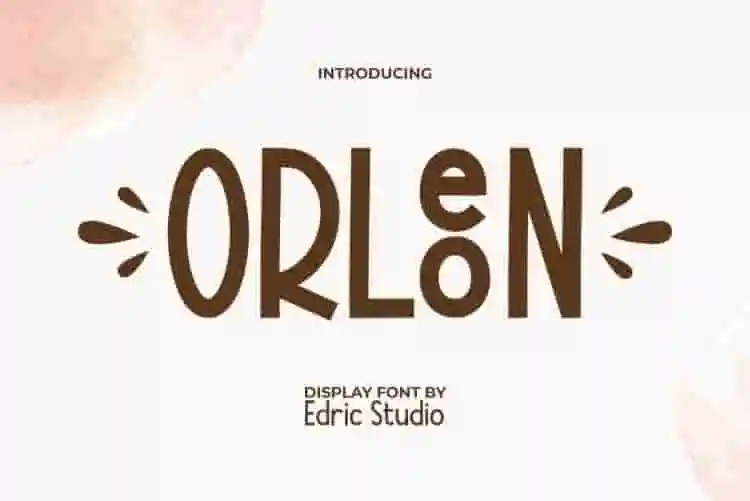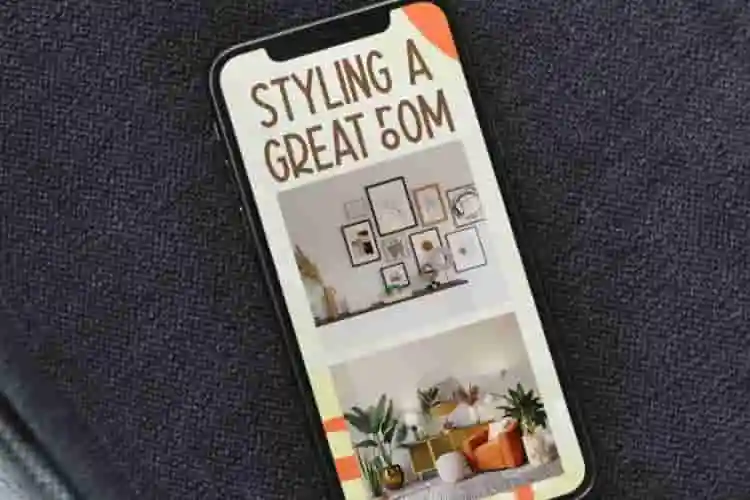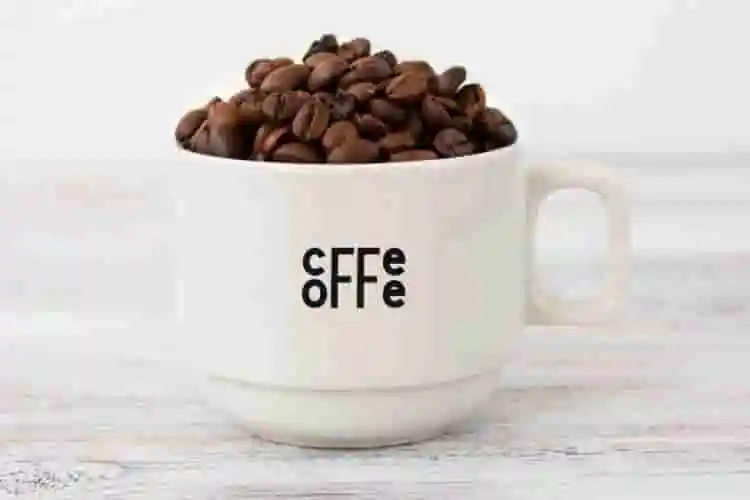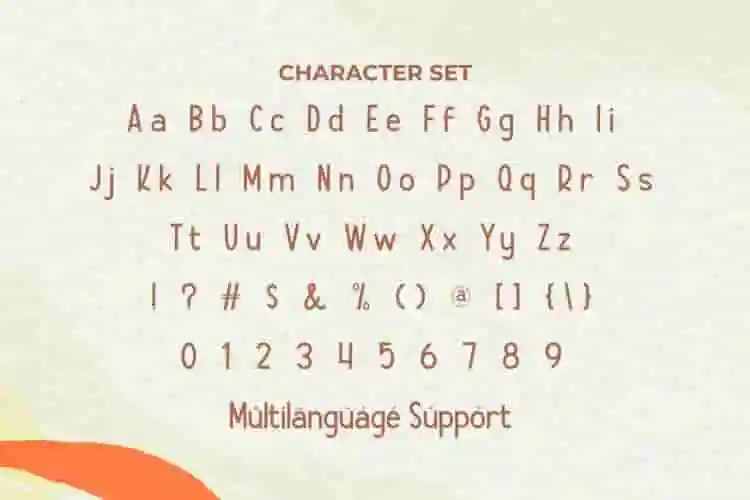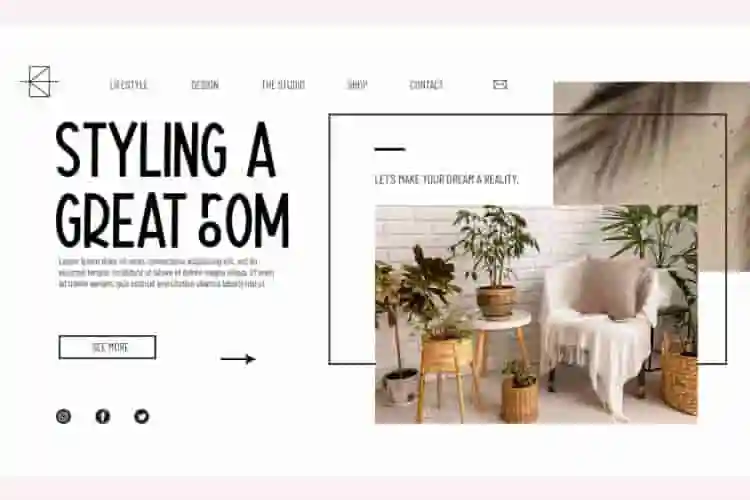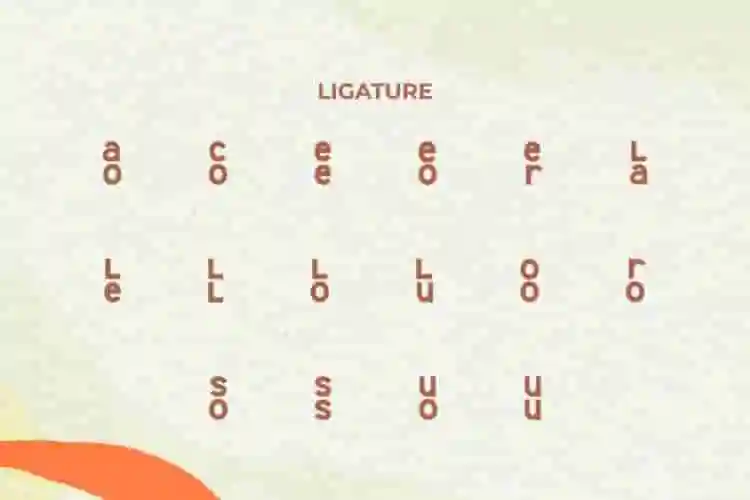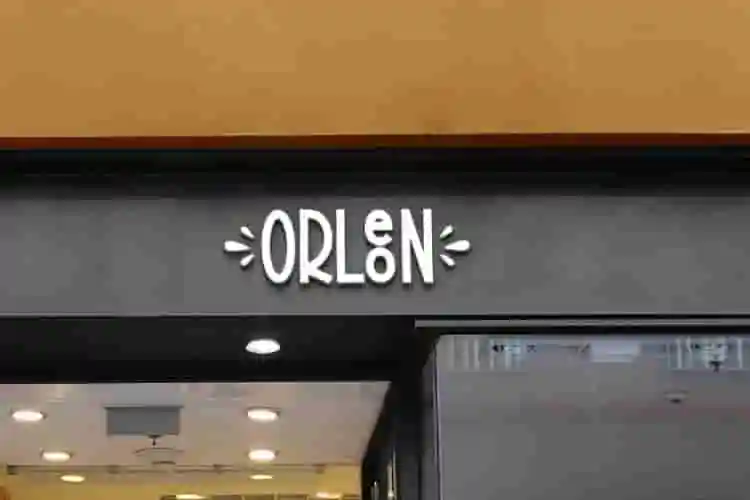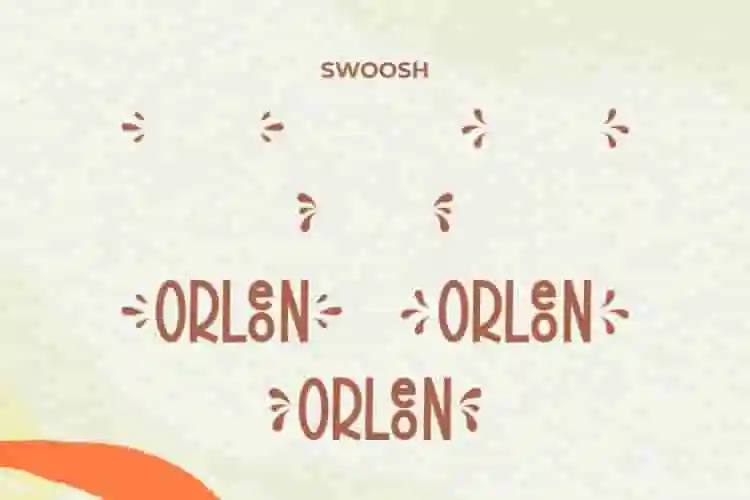
Orleon Font is a cute sans display font that bring fun comic typeface concept. It looks sleek and tall in upper letters because it is inspired by condensed fonts, another unique thing it gets is the ligature character which feels creative for whatever your design is, such as apps, blogs, brochure, catalogue, header, logos, packaging design, pamphlet, poster, product label, quotes, screen print, signage, stationery, sticker, title, website, and more.
Introducing Orleon Display Font – a bold, stylish, and futuristic typeface built to capture attention with elegance and strength. Featuring sleek lines, sharp edges, and a modern display style, Orleon Sleeker is perfect for projects that demand power, precision, and a high-impact visual identity. Whether you’re designing posters, logos, product packaging, or social media graphics, this font ensures your designs are unforgettable.
Orleon Display Font combines innovation with bold aesthetics, making it an excellent choice for branding, advertising campaigns, event promotions, gaming visuals, and merchandise. Its striking letterforms communicate confidence and creativity, allowing your message to stand out in both print and digital platforms. Ideal for industries like technology, sports, entertainment, and lifestyle, Orleon Sleeker adds a sophisticated edge to every project.
Orleon Display Font comes with a full set of Uppercase and Lowercase letters, Number, Punctuation, Symbol, Ligature, and Swoosh. The clean letters of the strong font make it dynamic in a variety of projects for any industry, such as architect, café, content creator, design interior, fashion, furniture, graphic design, handicraft, printing, publishing, restaurant, shopping center, web designer, writer, etc.